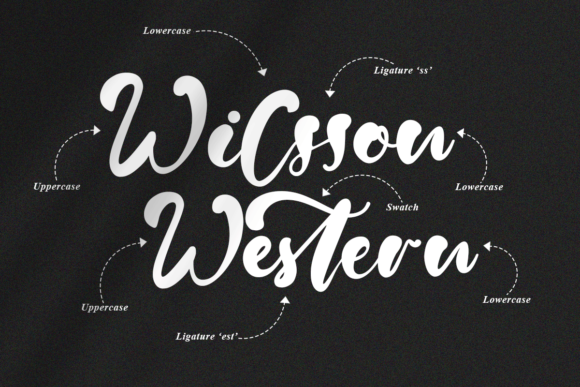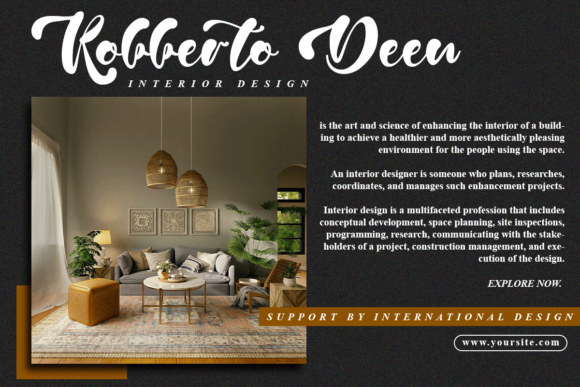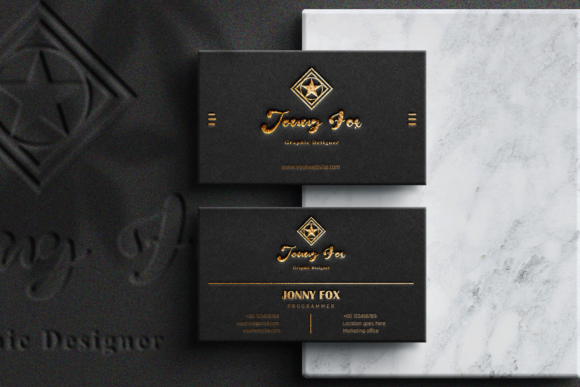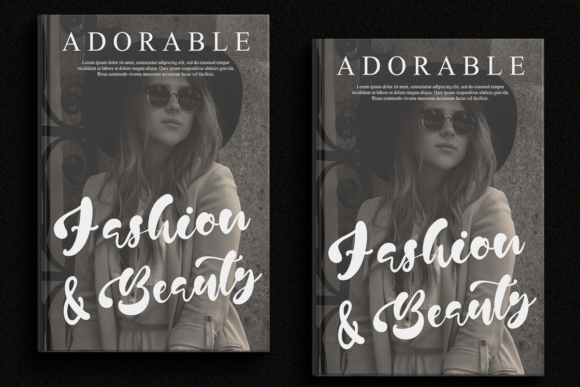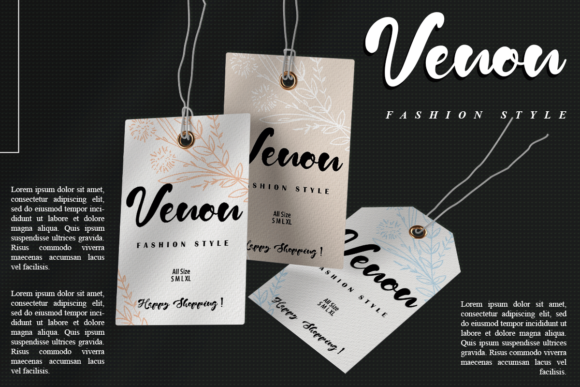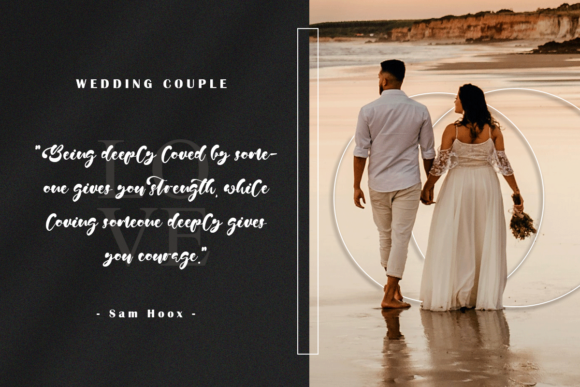
Introduction to Jayne Oliver Font
Jayne Oliver is a trendy script font.
Incredibly versatile, this font fits a wide pool of designs, elevating them to the highest levels Add this font to your favorite creative ideas and notice how it makes them come alive.
Key Features of Jayne Oliver Font
Why Choose Jayne Oliver Font?
Jayne Oliver Font offers exceptional quality and versatility, making it a valuable addition to your design toolkit. Whether you’re creating for personal projects or commercial use, Jayne Oliver Font delivers professional results.